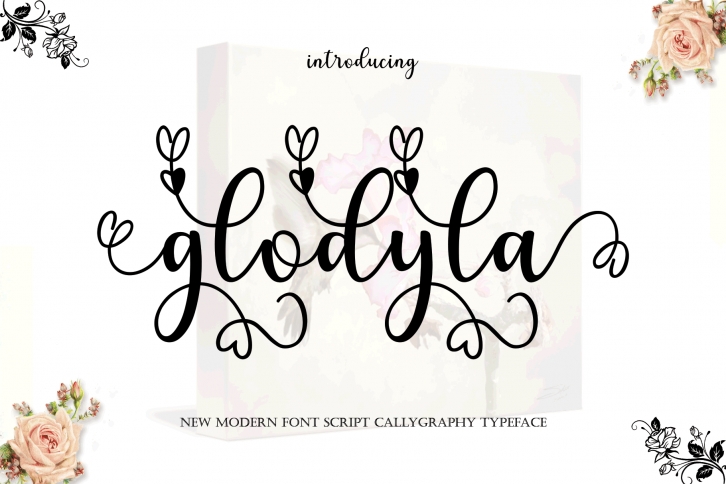
glodyla is a beautiful font that was designed by Letterfonts. It's a great choice for designers and creatives who need such a font. It was released on February 14, 2020 and the file size is 9.73 MB. glodyla may give a more youthful, expressive and casual look to your project. It is a very beautiful, refined, elegant, and high-quality font.